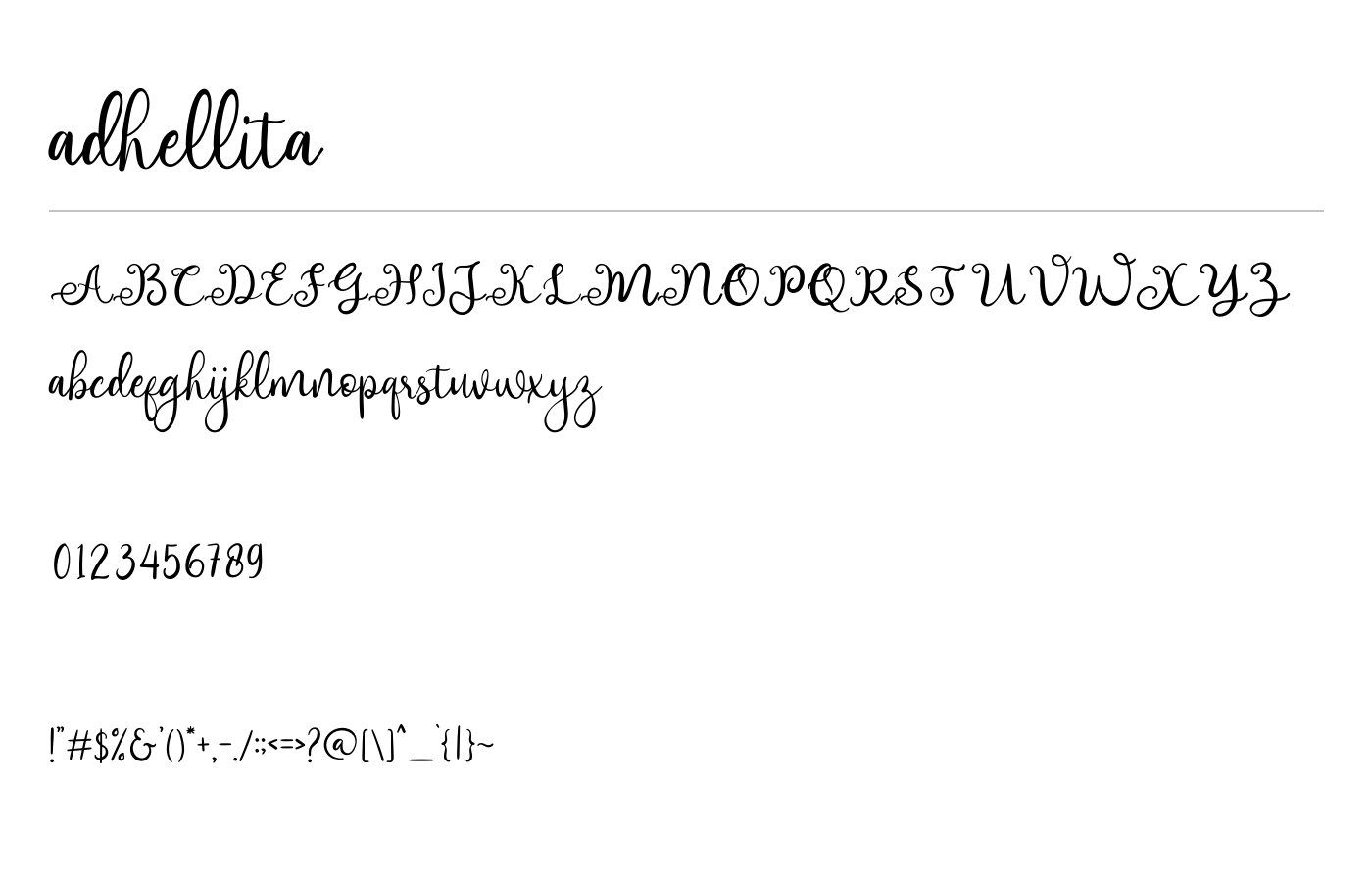
Adhellita is a delicate script font with elegant, flowing letterforms characterized by slender strokes and decorative swirls, especially noticeable in its uppercase characters. Its high x-height and slightly condensed style make it readable while still maintaining a graceful and playful personality, ideal for feminine branding, invitations, and creative projects seeking a personal touch. This font works best in headlines or display uses where a touch of charm and sophistication is desired.
adhellita Font